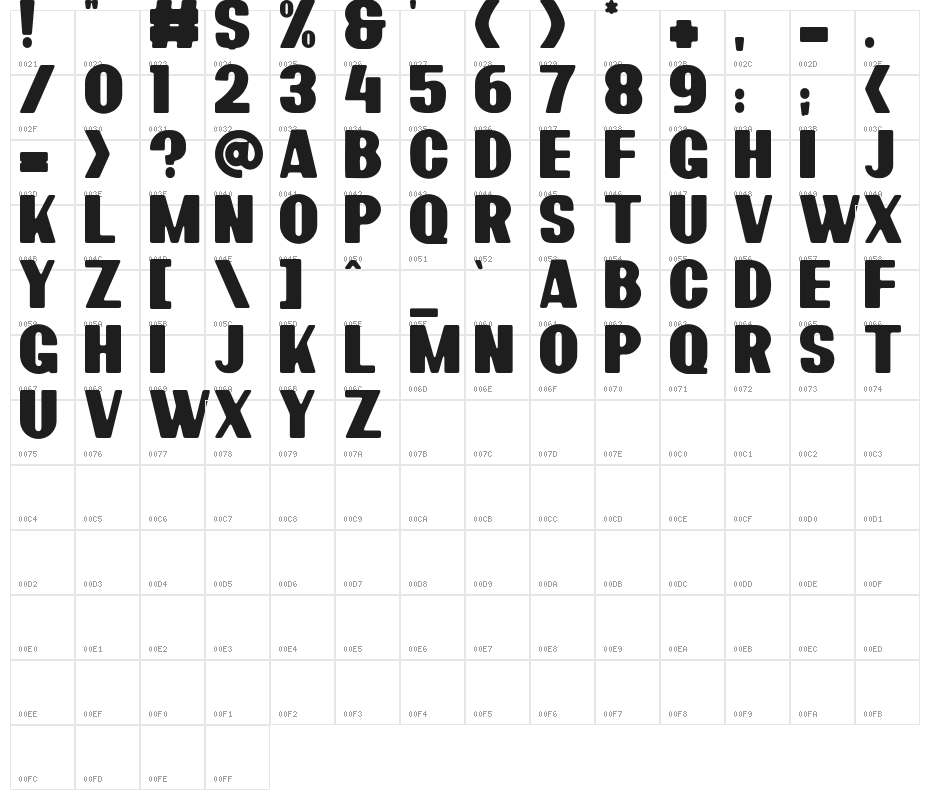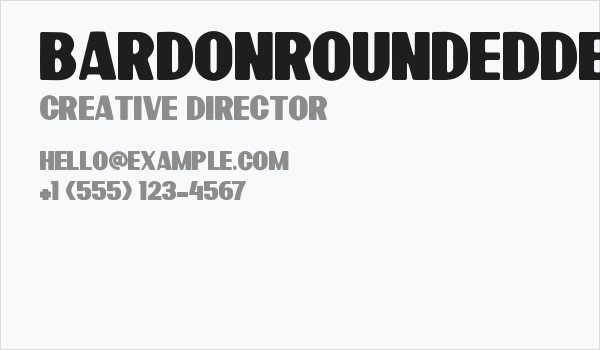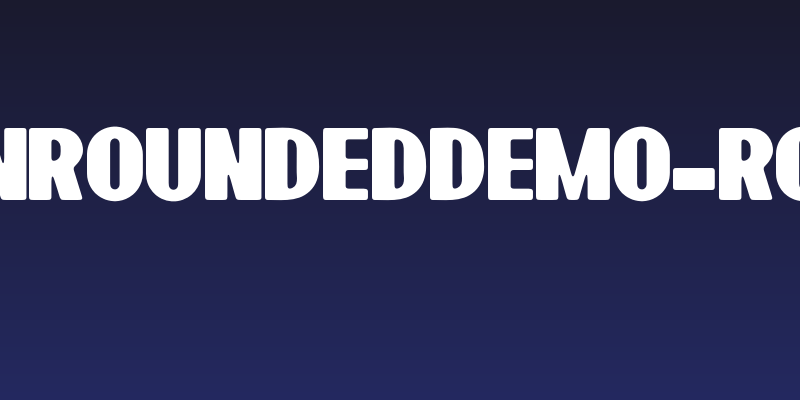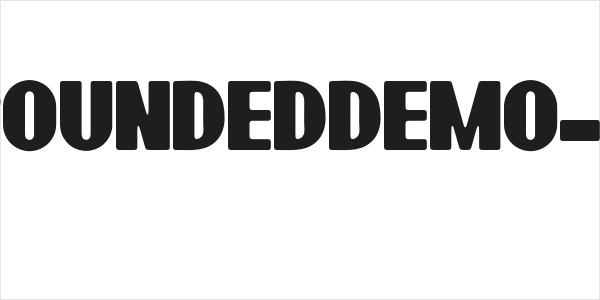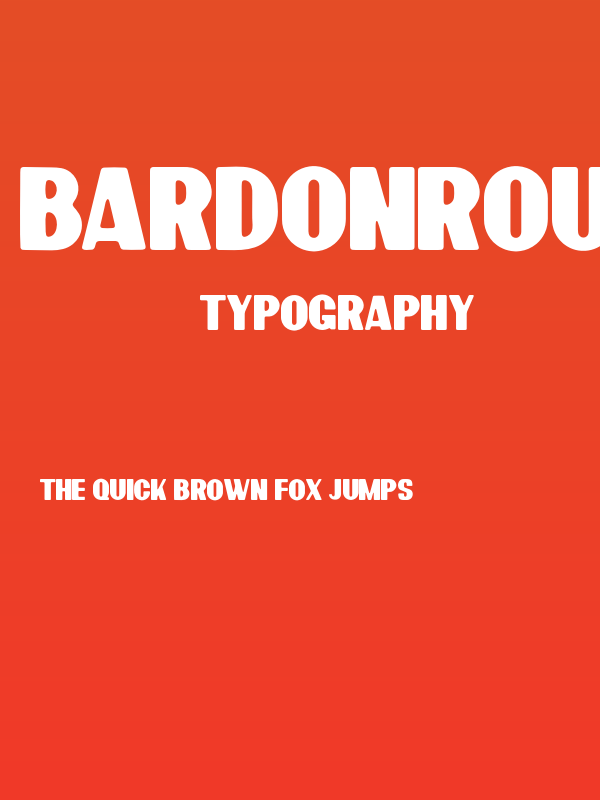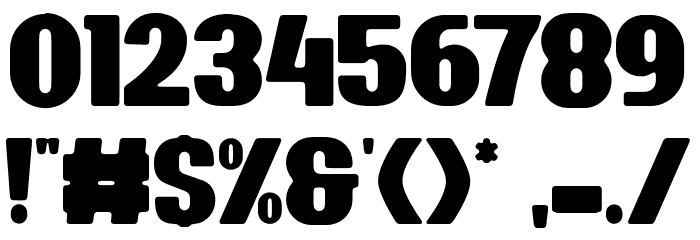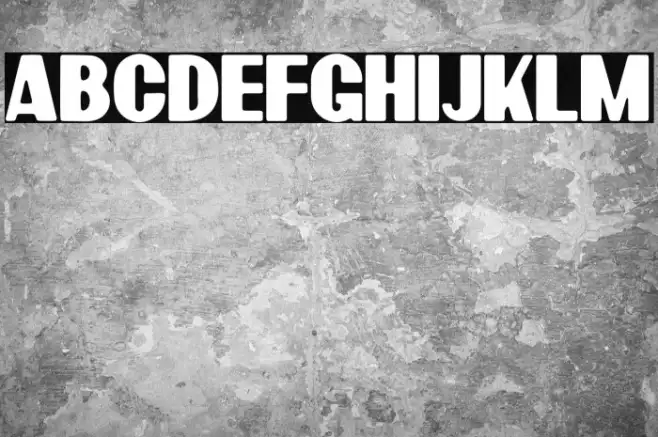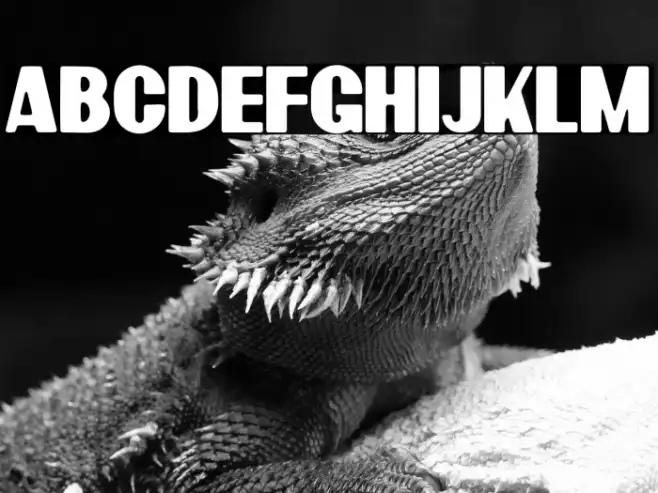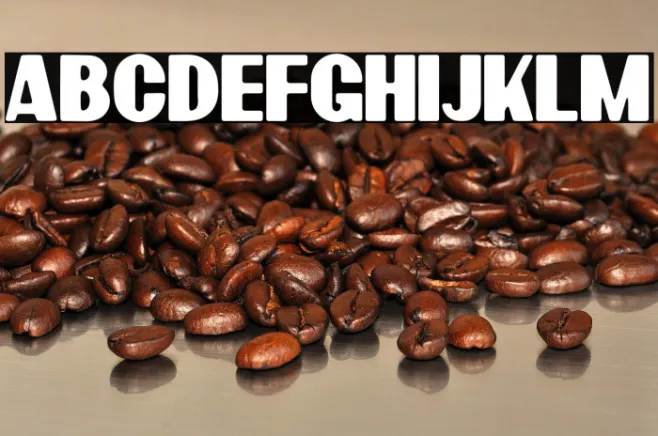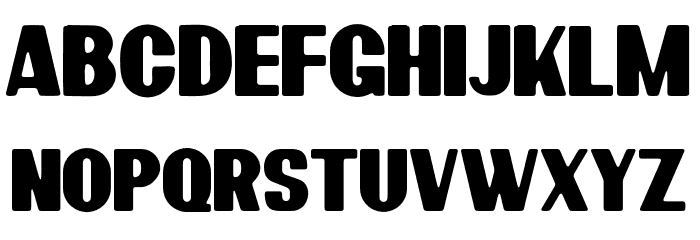
BardonRoundedDemo-Rounded Font
BardonRoundedDemo-Rounded Description
This font features bold, rounded characters that convey a sense of strength and approachability. The uppercase and lowercase letters are consistent in their rounded style, creating a cohesive look. The numbers and special characters maintain the same boldness and rounded edges, ensuring uniformity across all elements. The overall design is modern and clean, making it versatile for various applications. The rounded edges soften the boldness, adding a friendly and inviting feel to the text.